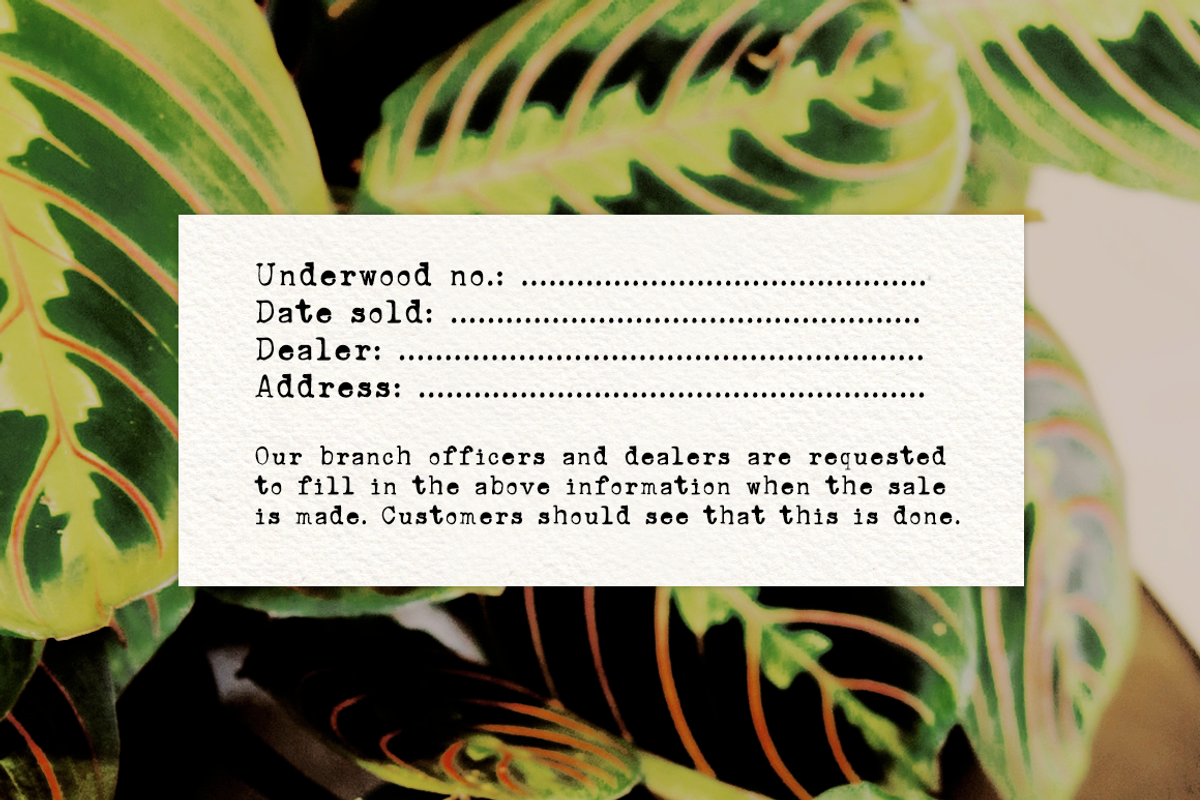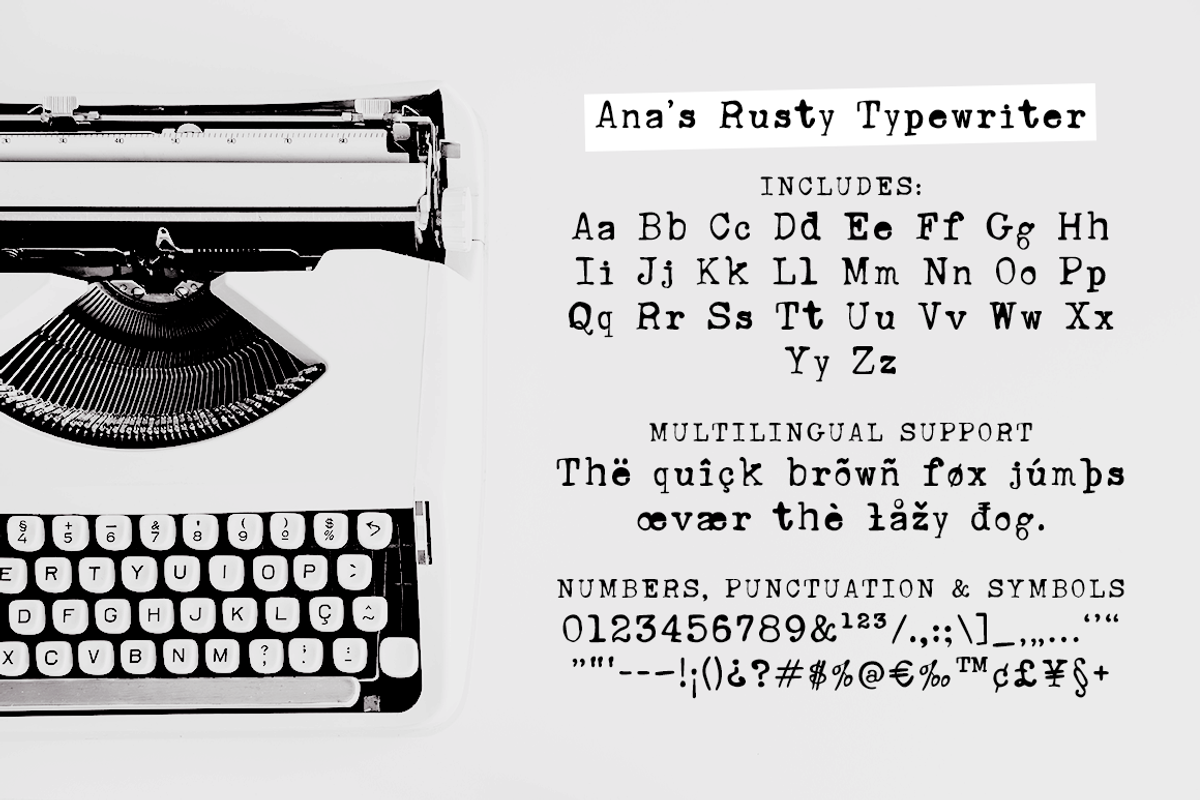
Ana's Rusty Typewriter font
Ana's Rusty Typewriter font by Ana's Fonts is a font selected for branding, posters, packaging, typography.
- Ana's Rusty Typewriter is a hand-drawn font based on an old Underwood typewriter, including: A-Z | a-z | 0-9 Punctuation & symbols Accents E
Ana's Rusty Typewriter font by Ana's Fonts fits naturally into Branding, posters, packaging, typography.